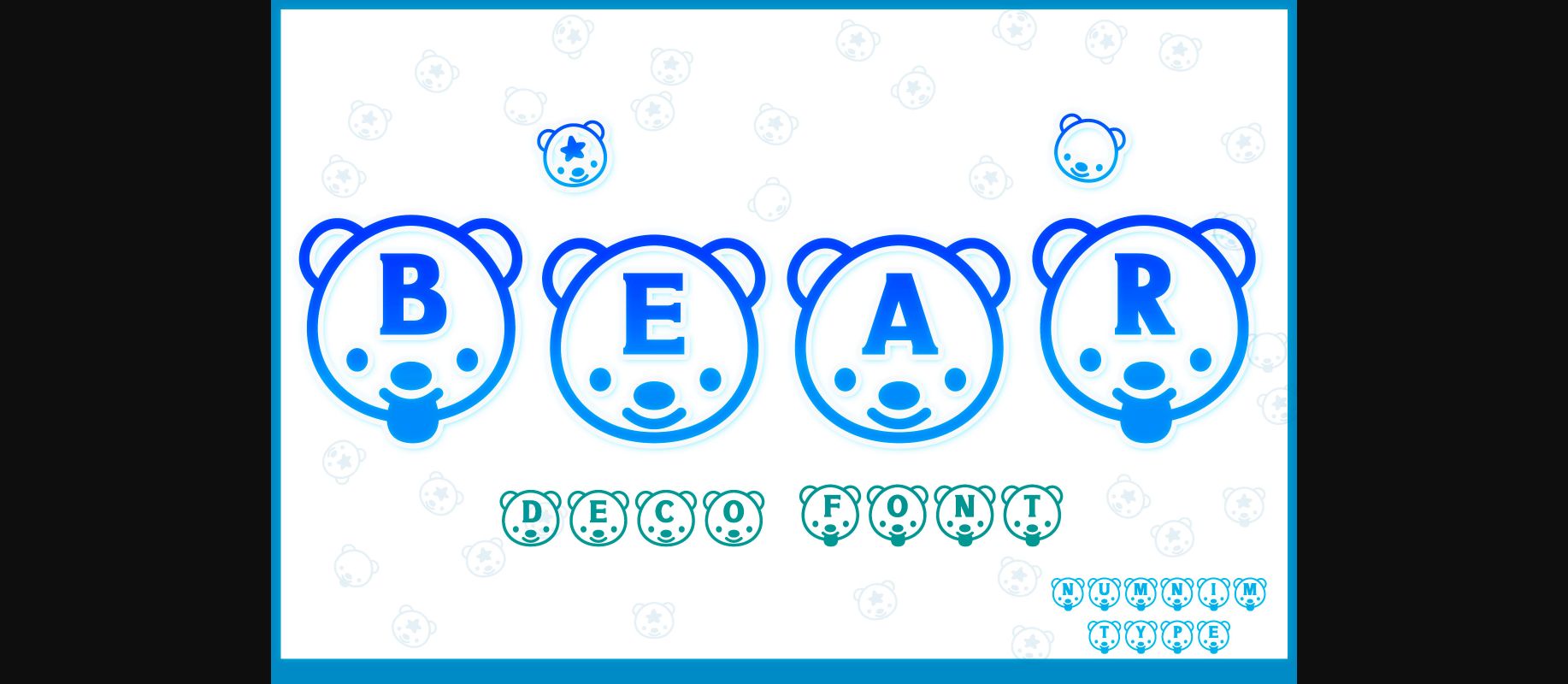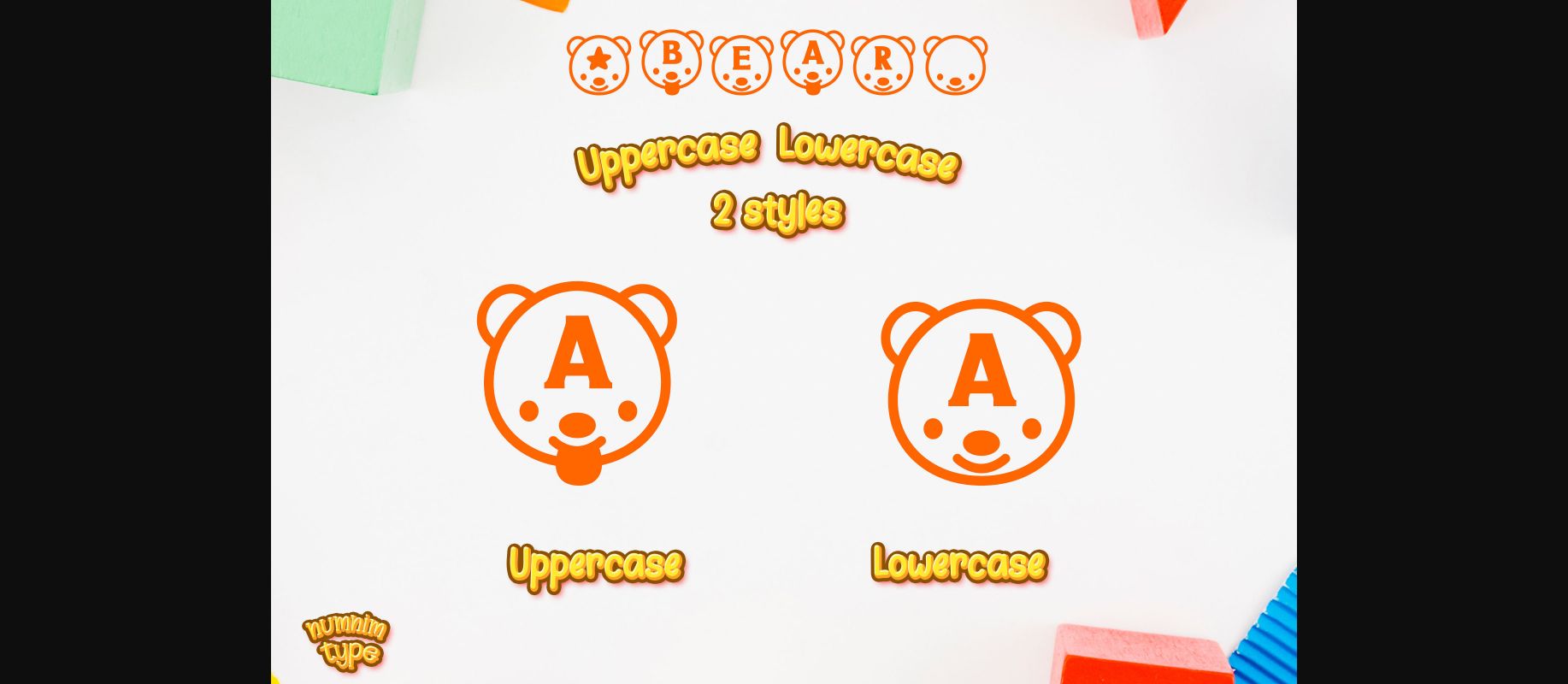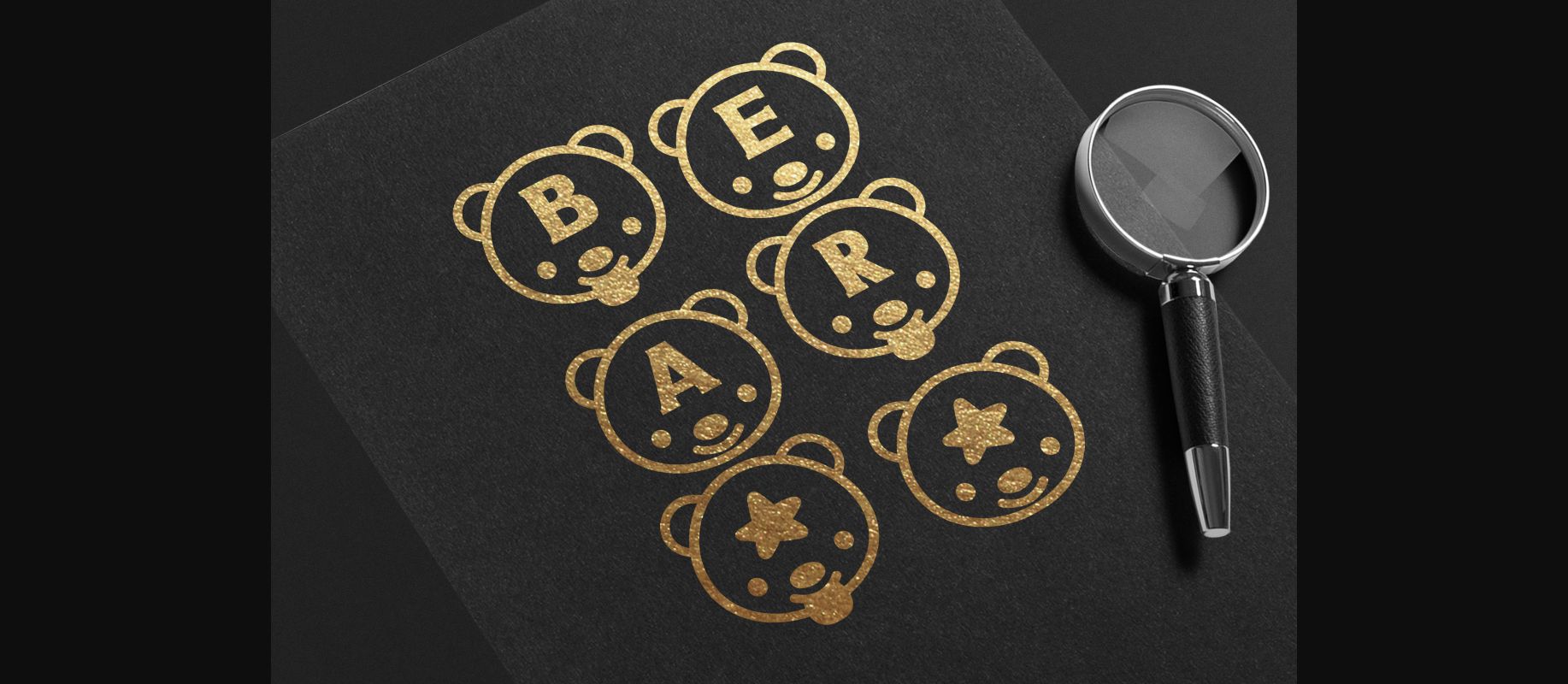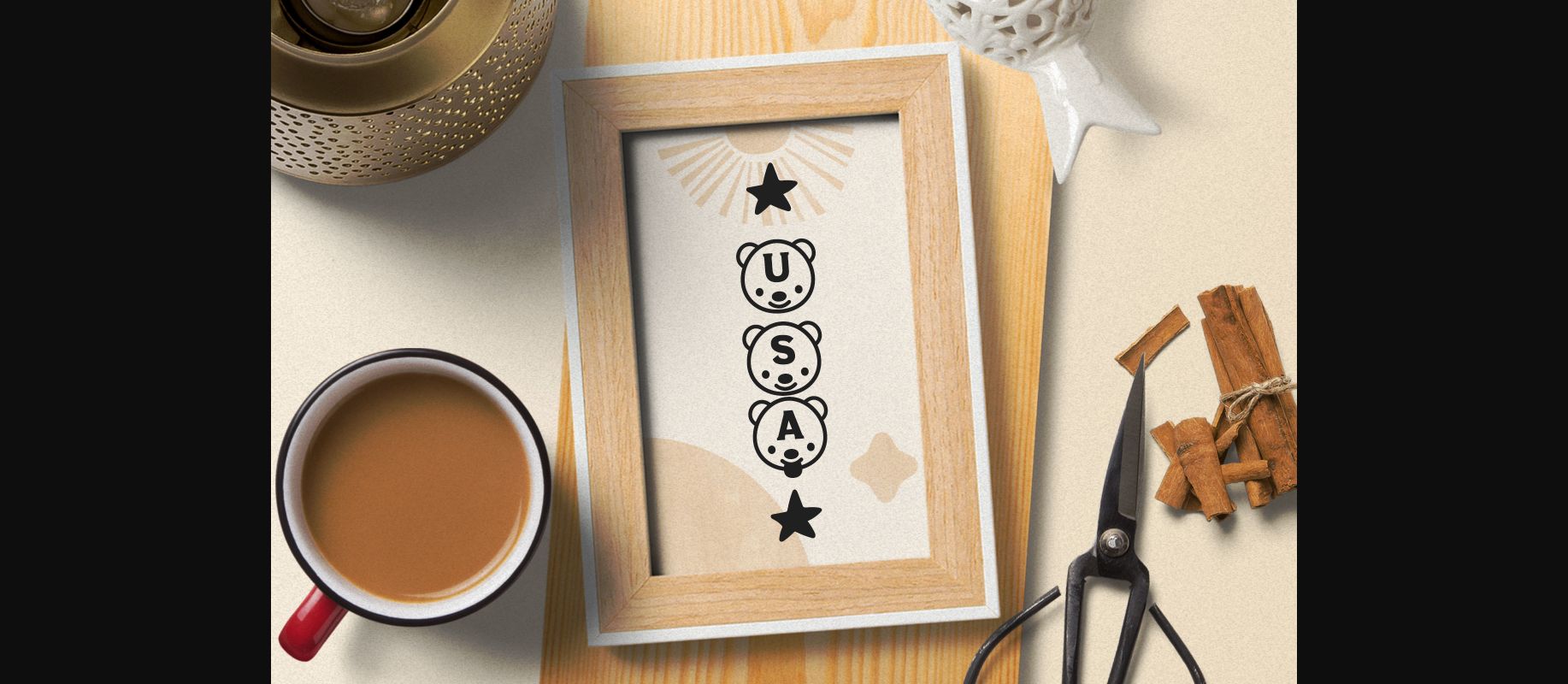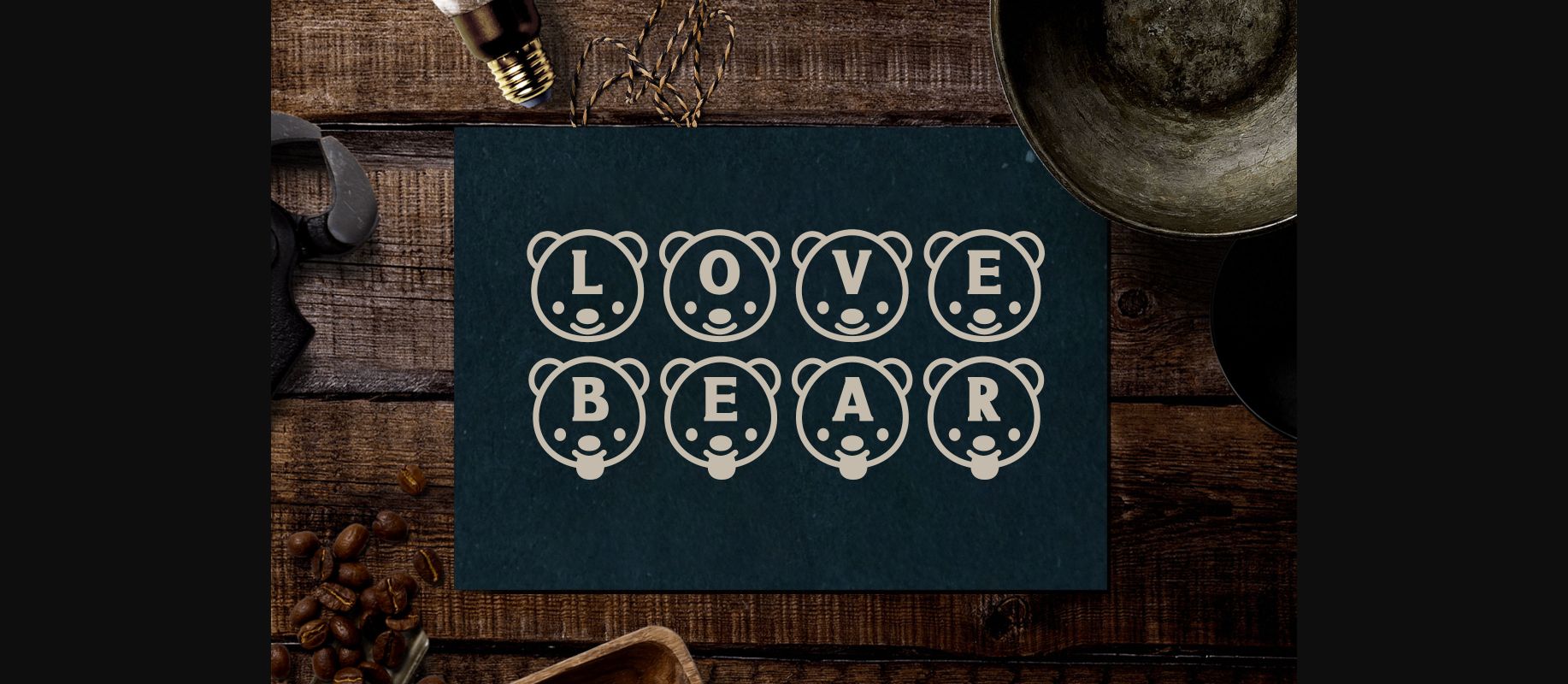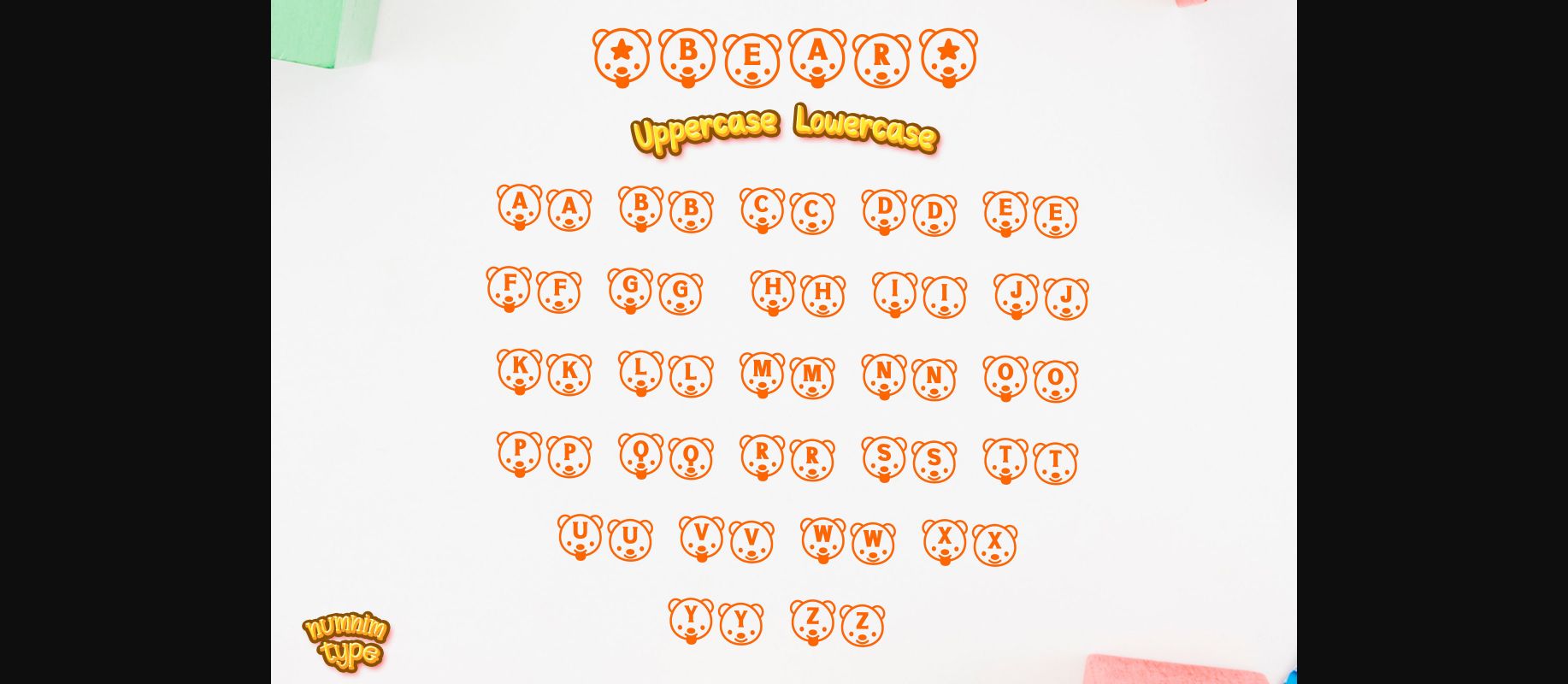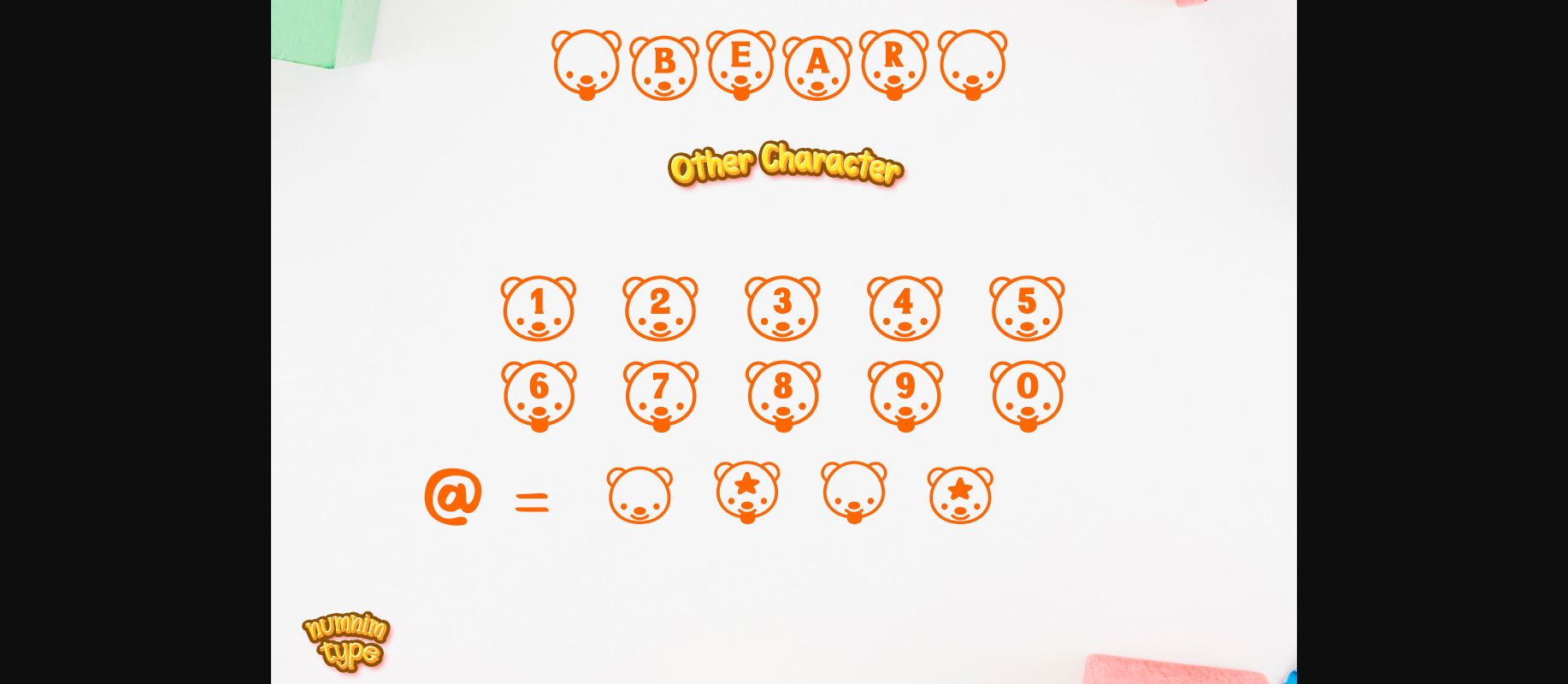
Bear is a cool and uniquely crafted decorative font. Its fun and playful characters make it the perfect font for stickers, mugs, t-shirts, ornaments, kids’ event cards, event invitations, and many more!